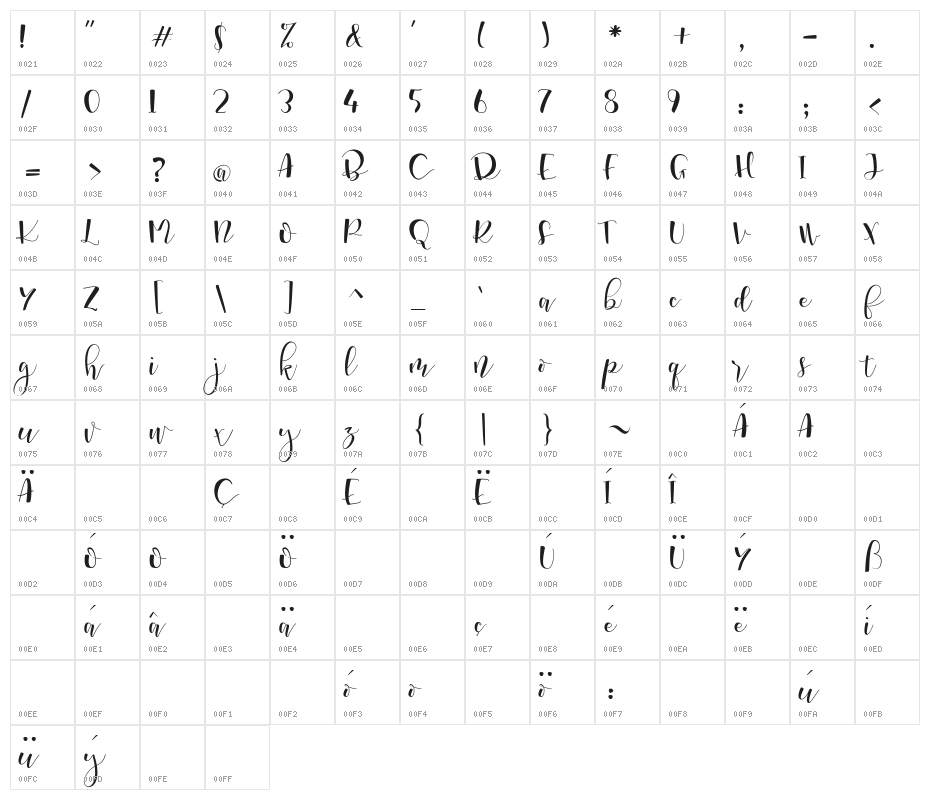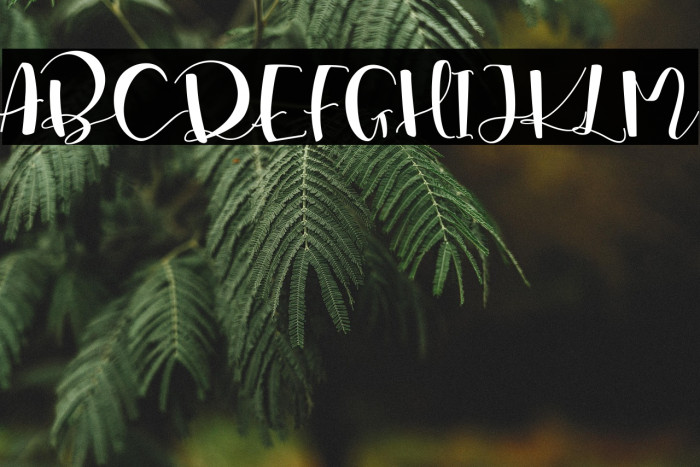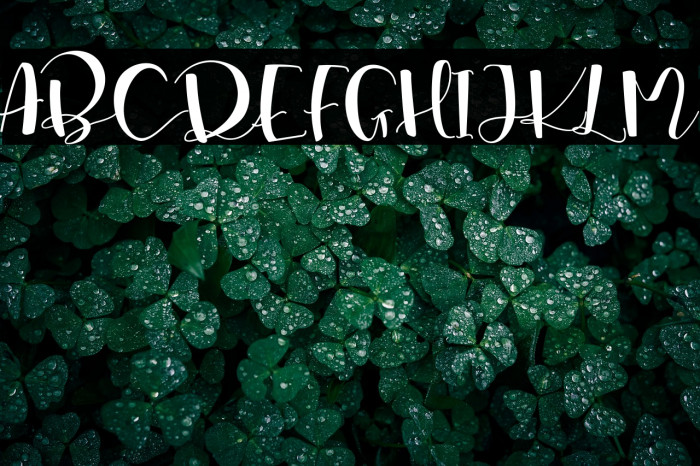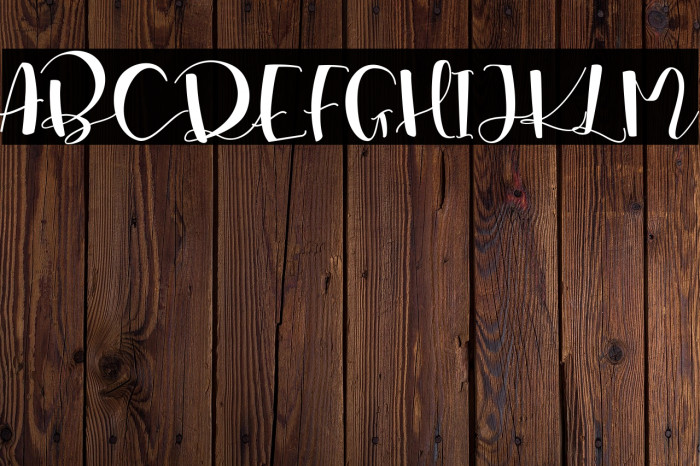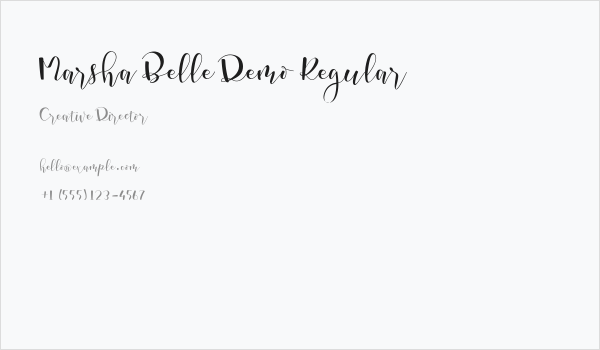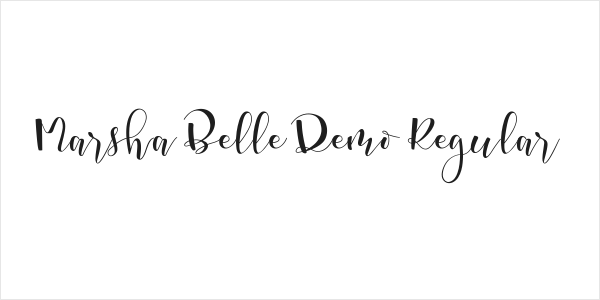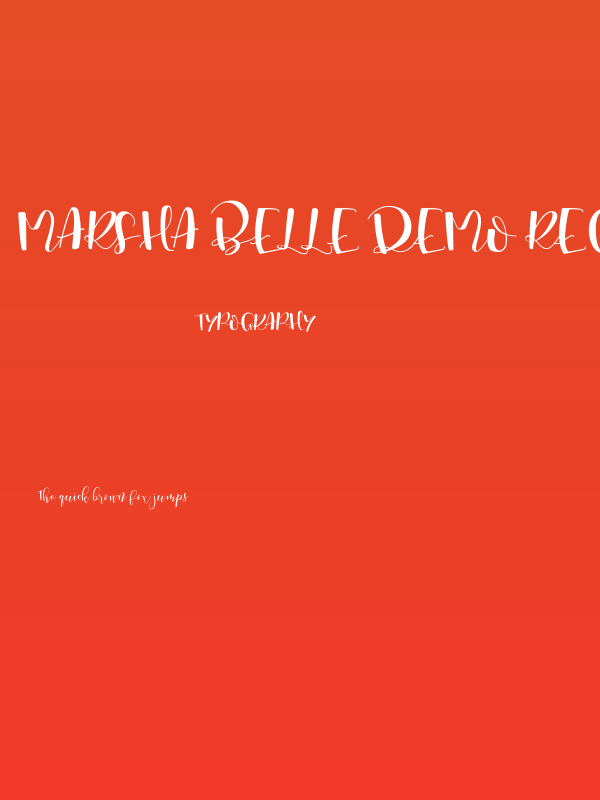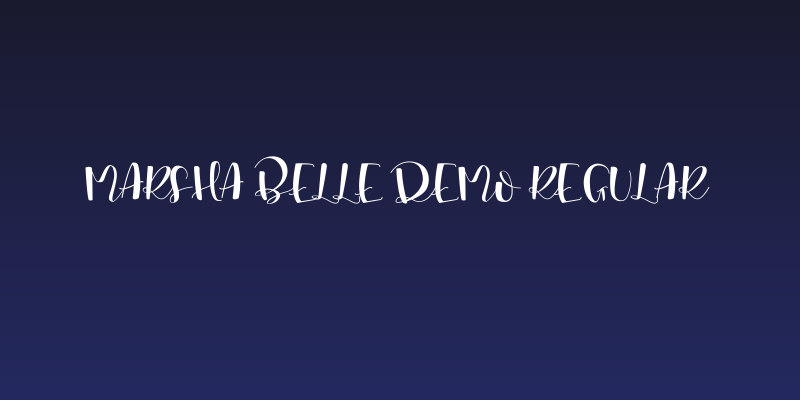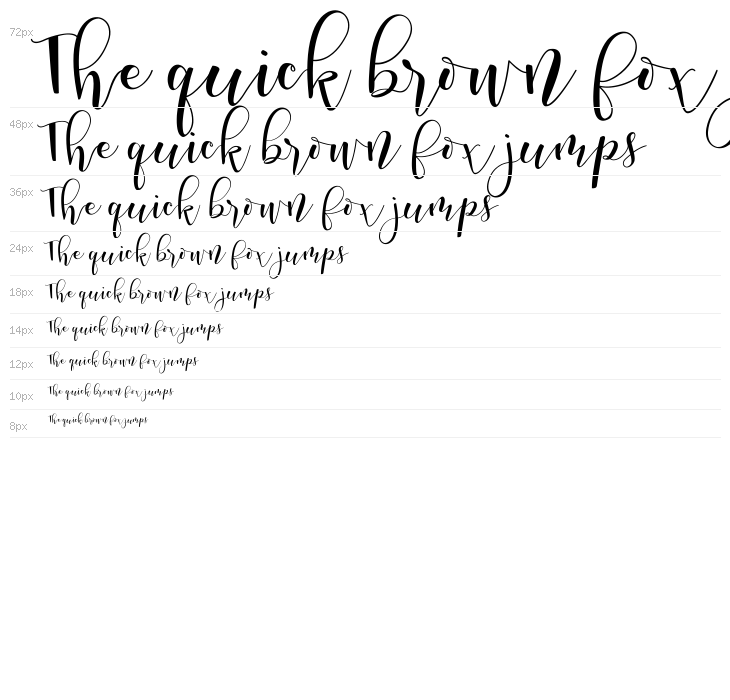
Marsha Belle Demo Regular Font
Marsha Belle Demo Regular Description
This font showcases a beautiful, flowing script style with an elegant and sophisticated appearance. The uppercase letters are characterized by their sweeping curves and loops, giving them a dynamic and lively feel. The lowercase letters maintain a consistent style, with smooth, connected strokes that enhance readability while preserving the font's artistic flair. The numerals are bold and slightly italicized, complementing the overall design. Special characters are thoughtfully integrated, maintaining the font's cohesive look. This font is perfect for adding a touch of elegance and personality to any project.
| Proposed Projects | Ideal for wedding invitations, branding, greeting cards, and elegant logos. |